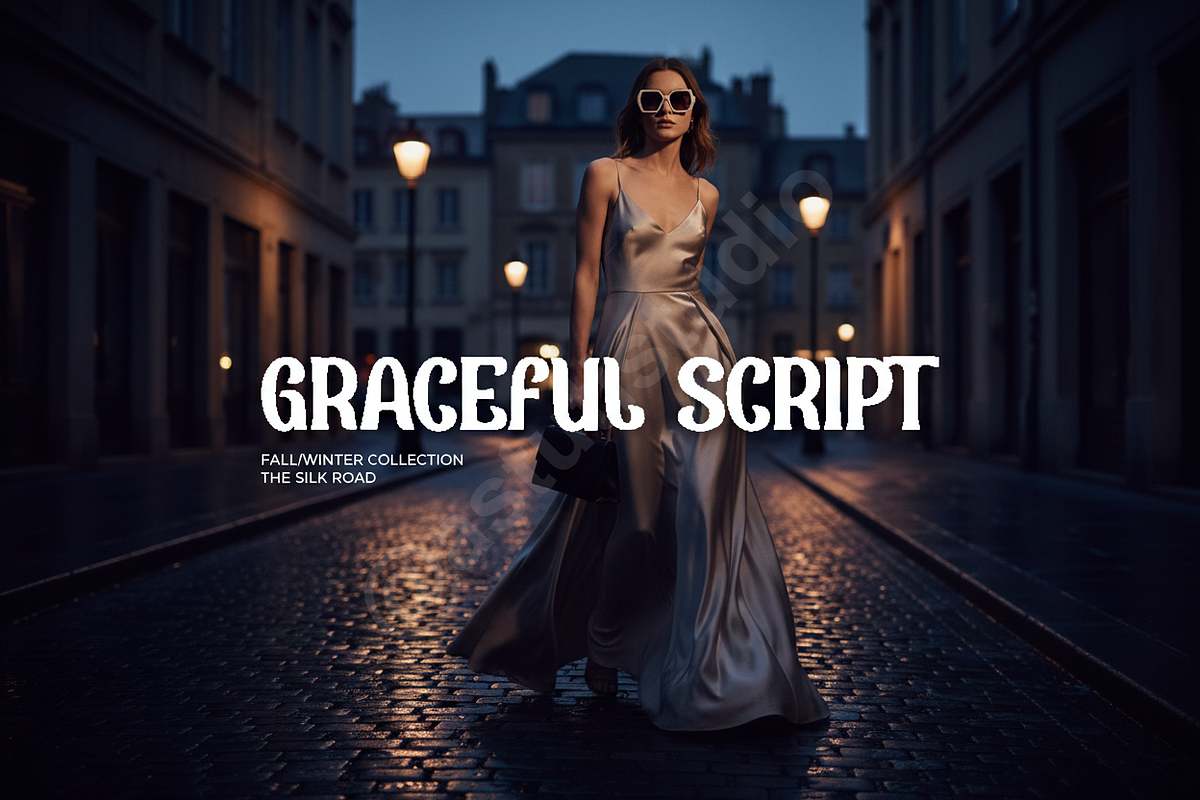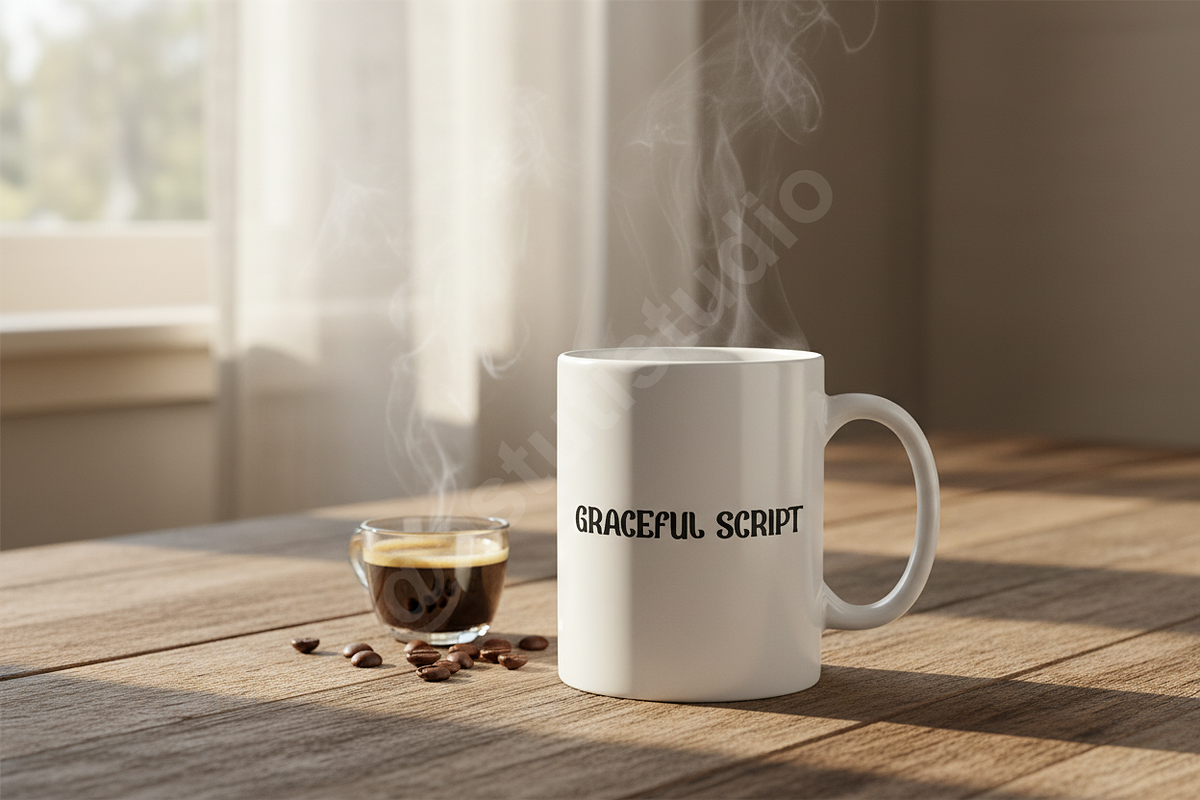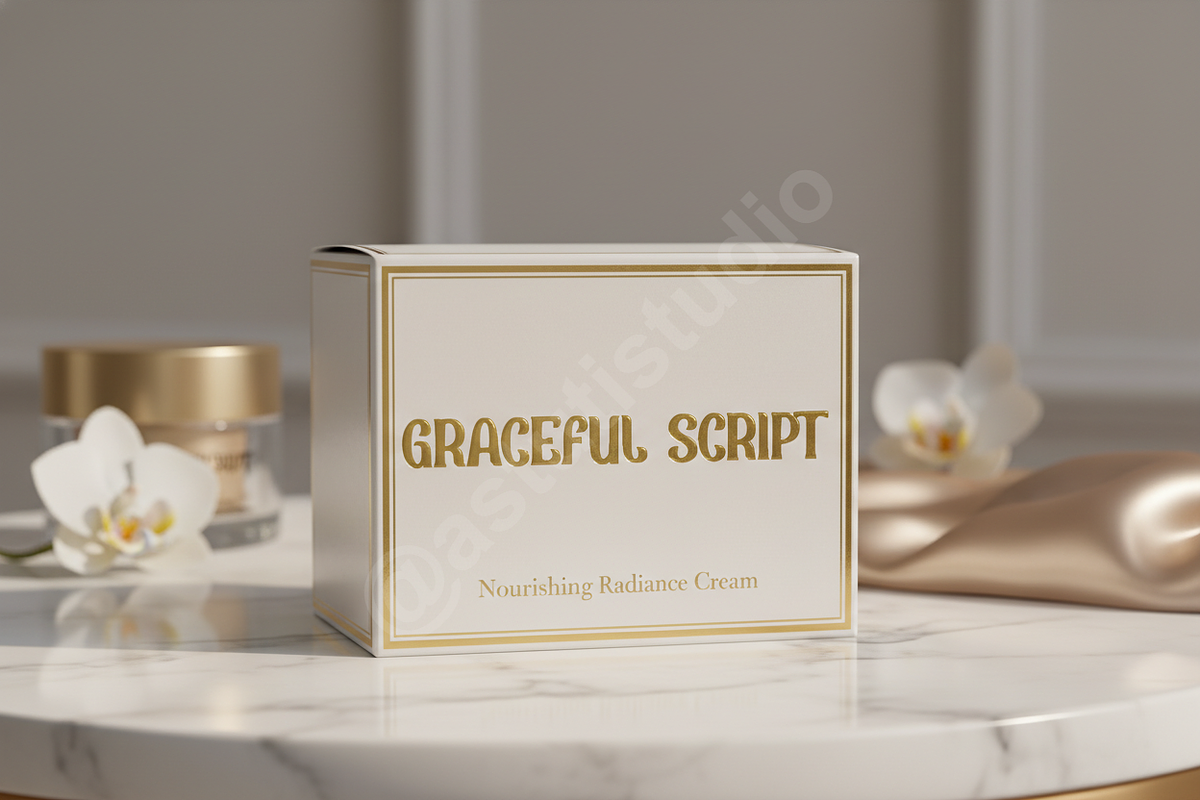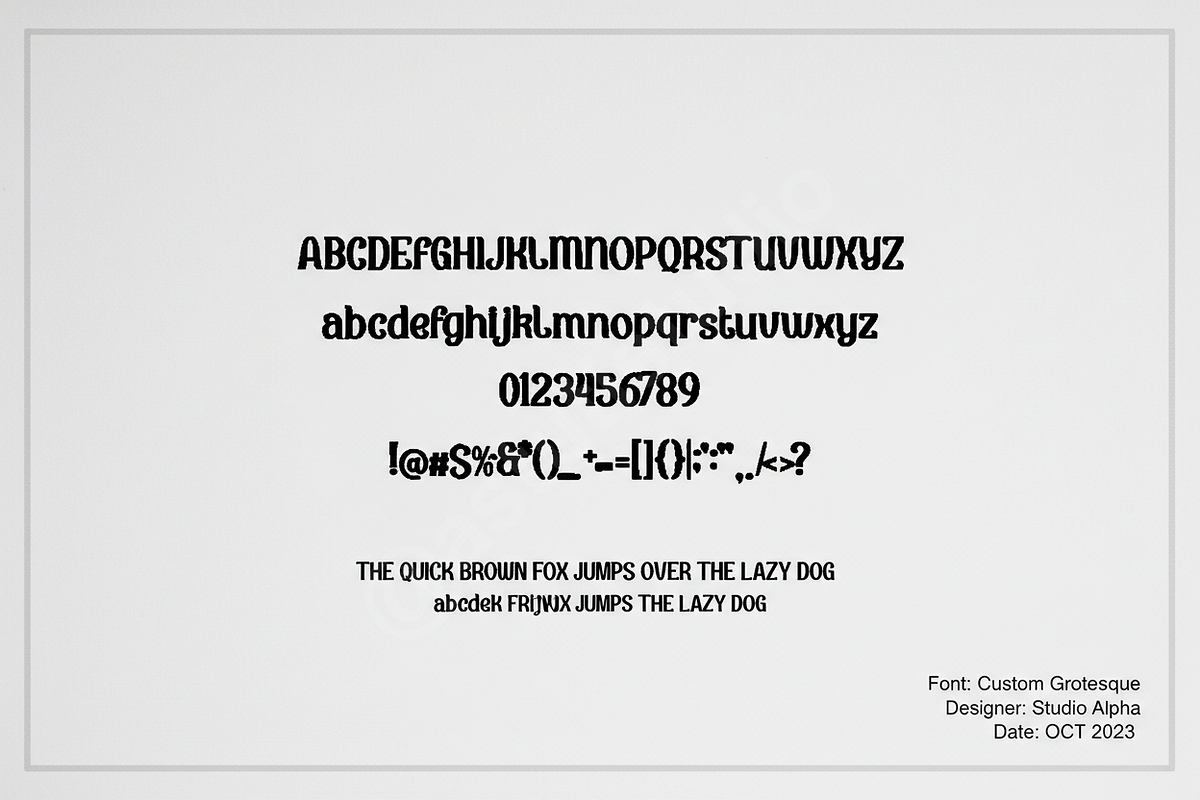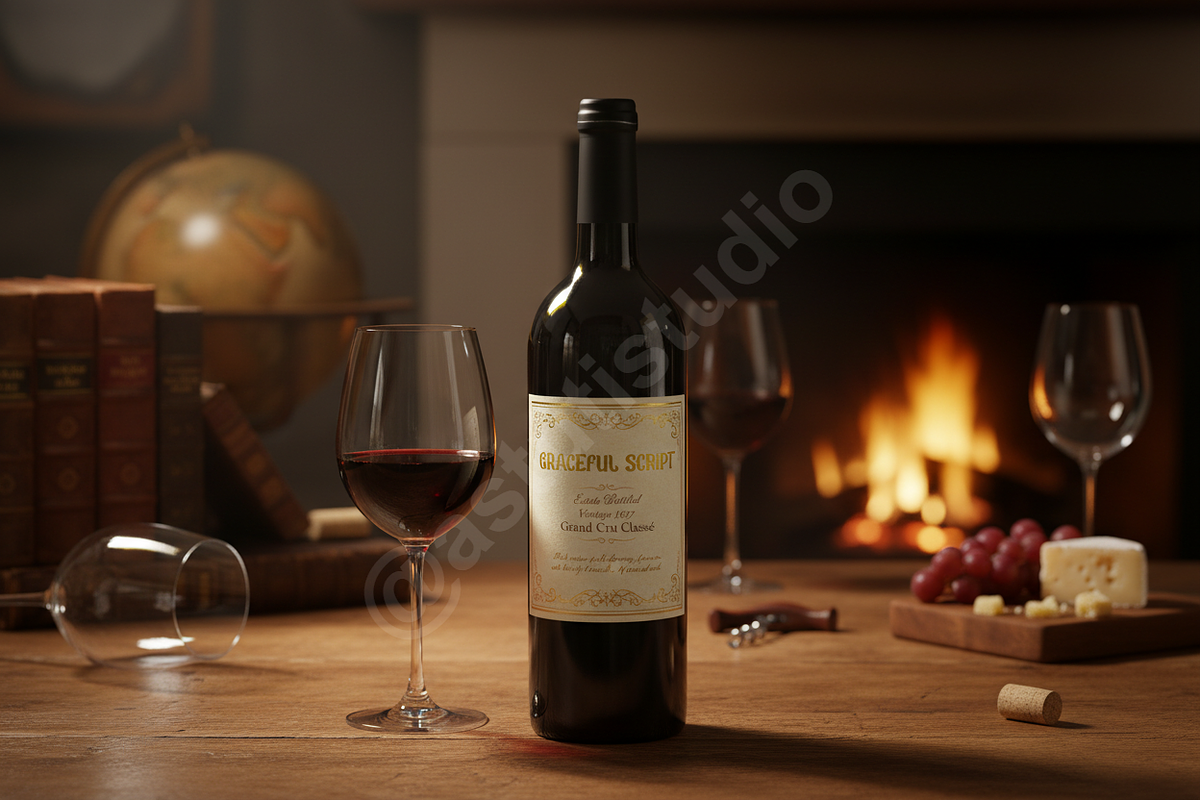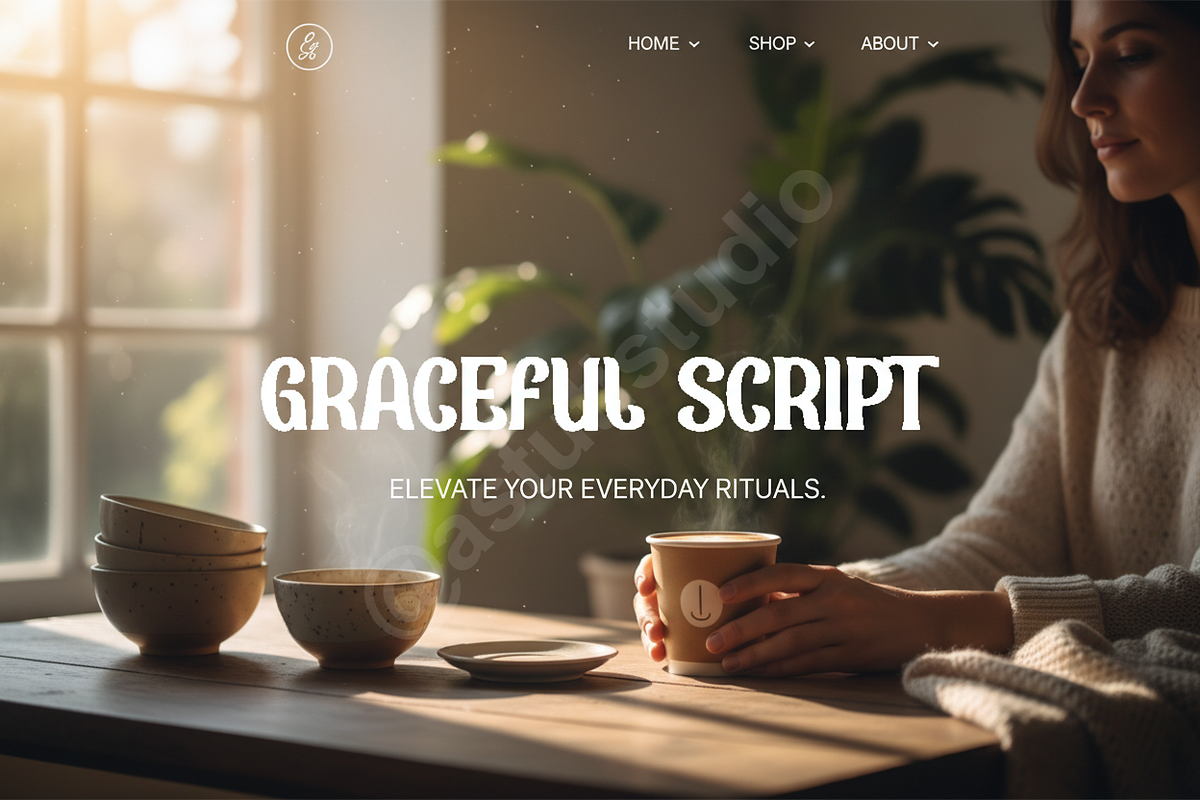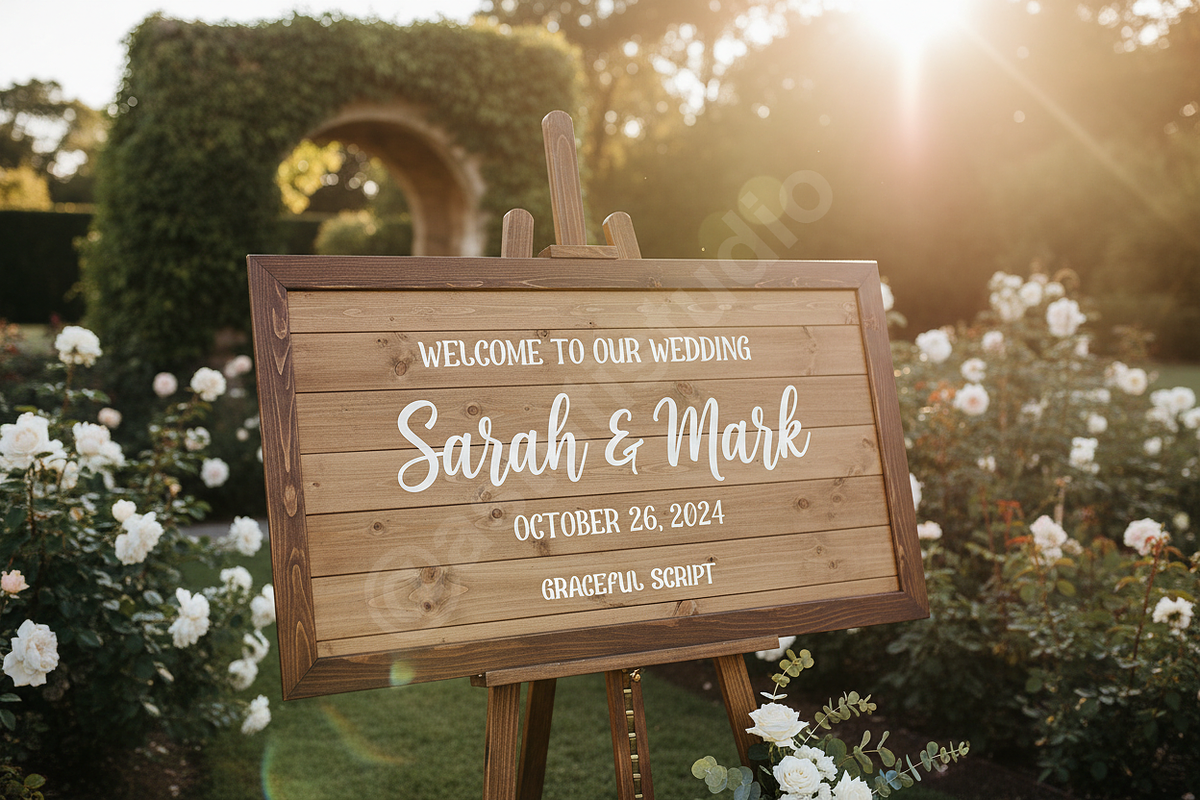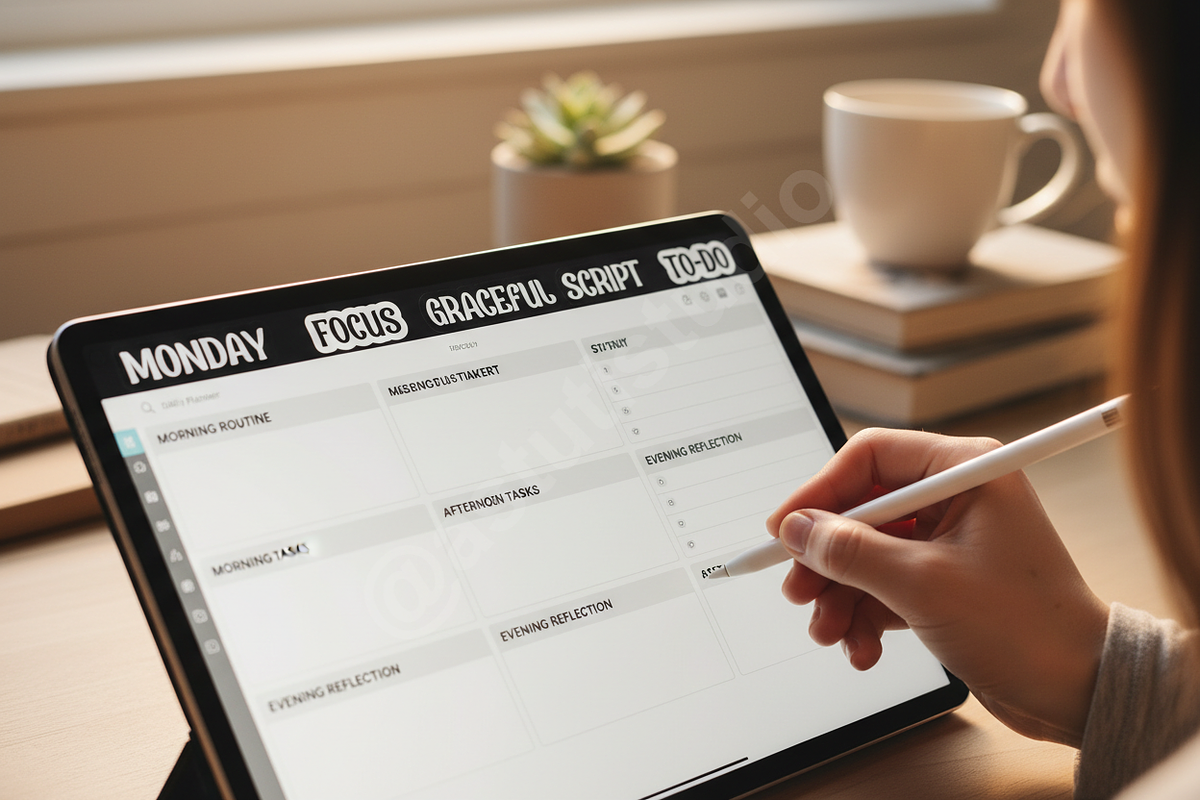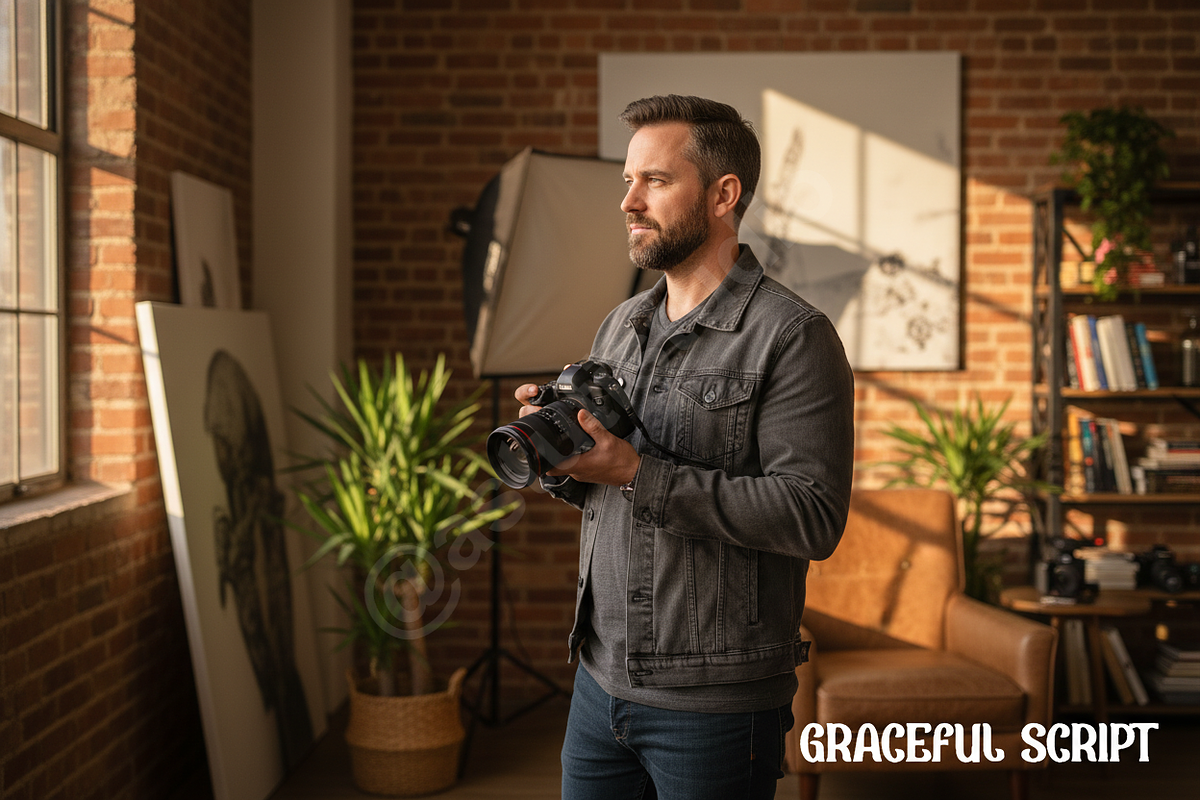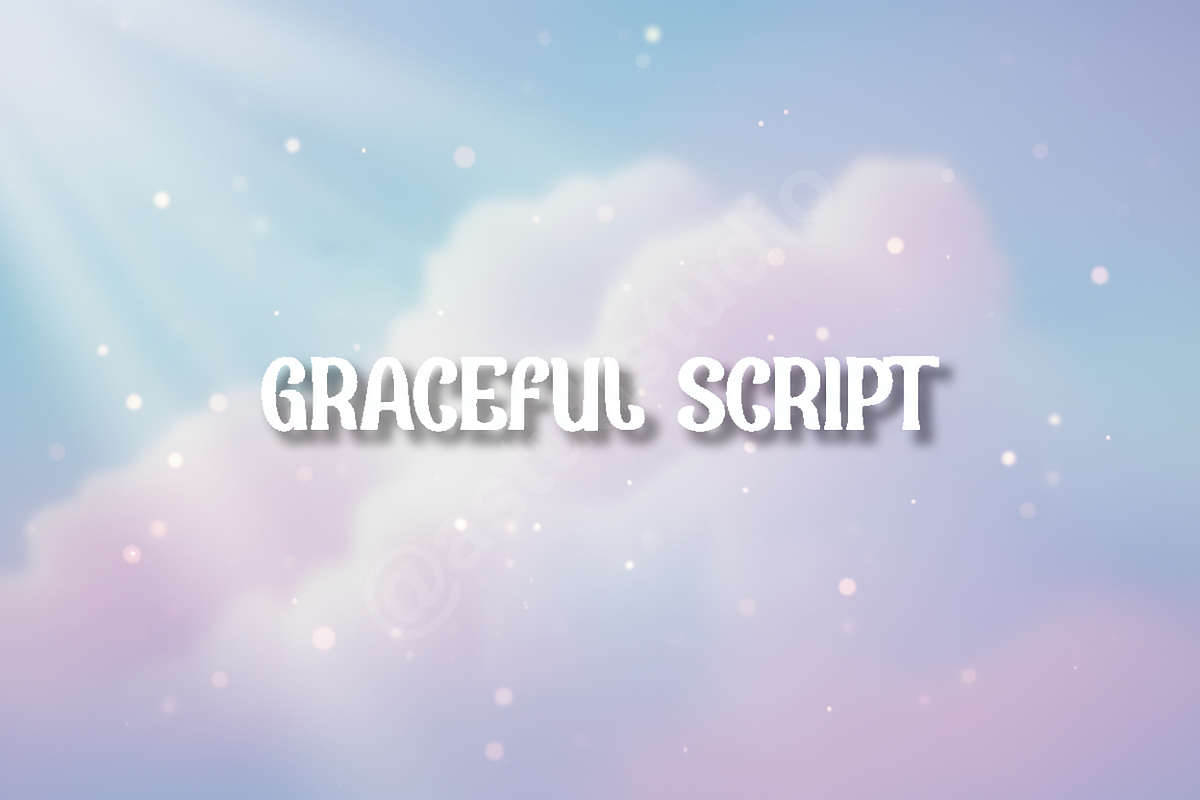
Fexi Typeface: Elegant Modern Serif
Fexi Typeface is the epitome of modern sophistication, meticulously crafted to elevate luxury branding, high-end editorial layouts, and impactful social media campaigns. Fexi blends classic elegance with a clean, contemporary structure, ensuring your message is delivered with undeniable authority and style. It is the perfect choice for brands seeking a truly premium and memorable visual identity.
KEY FEATURES
• Elegant & Versatile Design: Optimized for both large display titles and detailed body text. • Comprehensive Glyphs: Includes standard uppercase, lowercase, numbers, and punctuation. • Advanced OpenType Features: Over 30 stylistic alternates and custom ligatures to customize your aesthetic. • Multilingual Support: Extensive coverage for Western, Central, and South Eastern European languages. • Professional Kerning: Metrics painstakingly adjusted for perfect visual flow and readability.